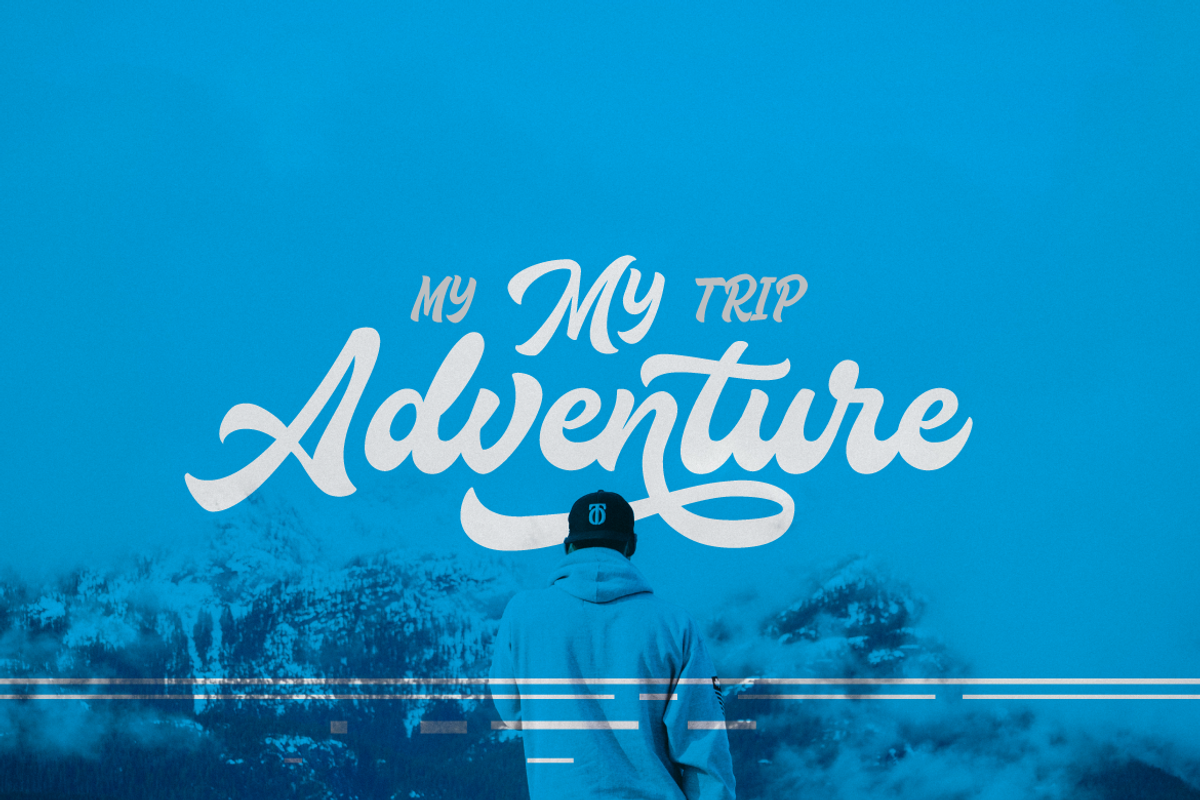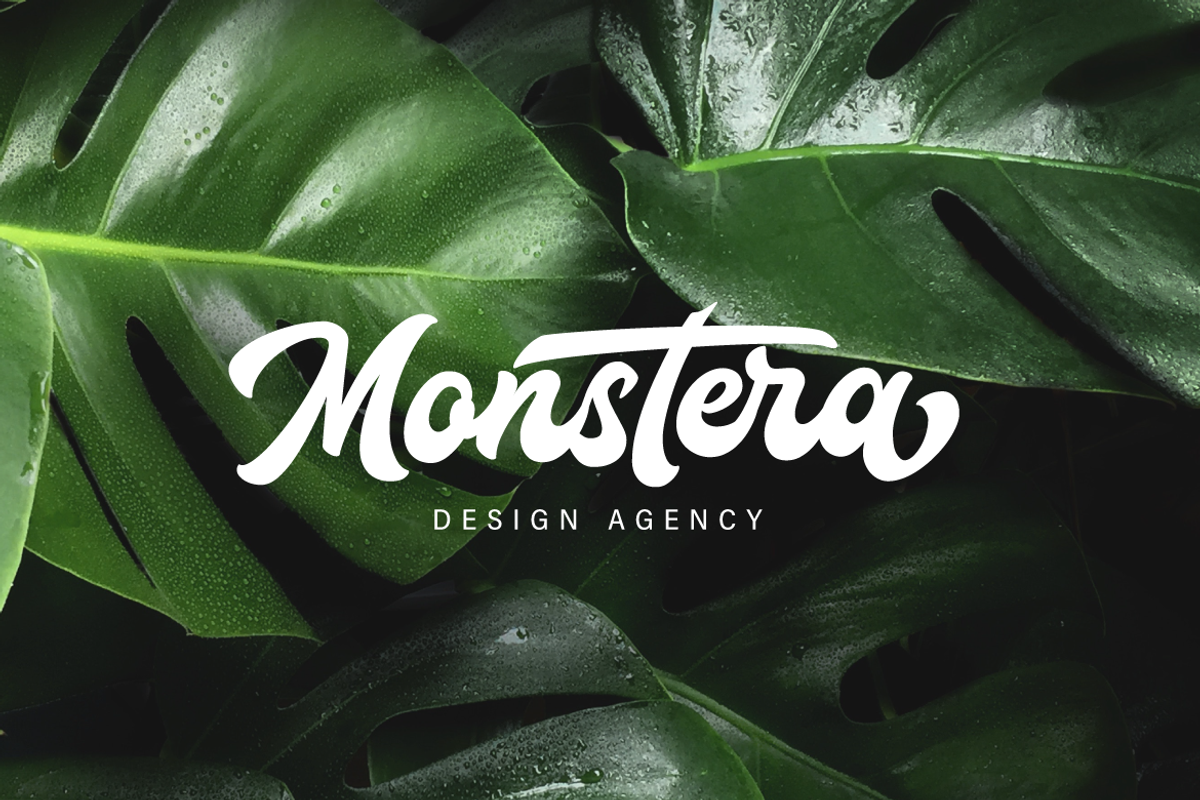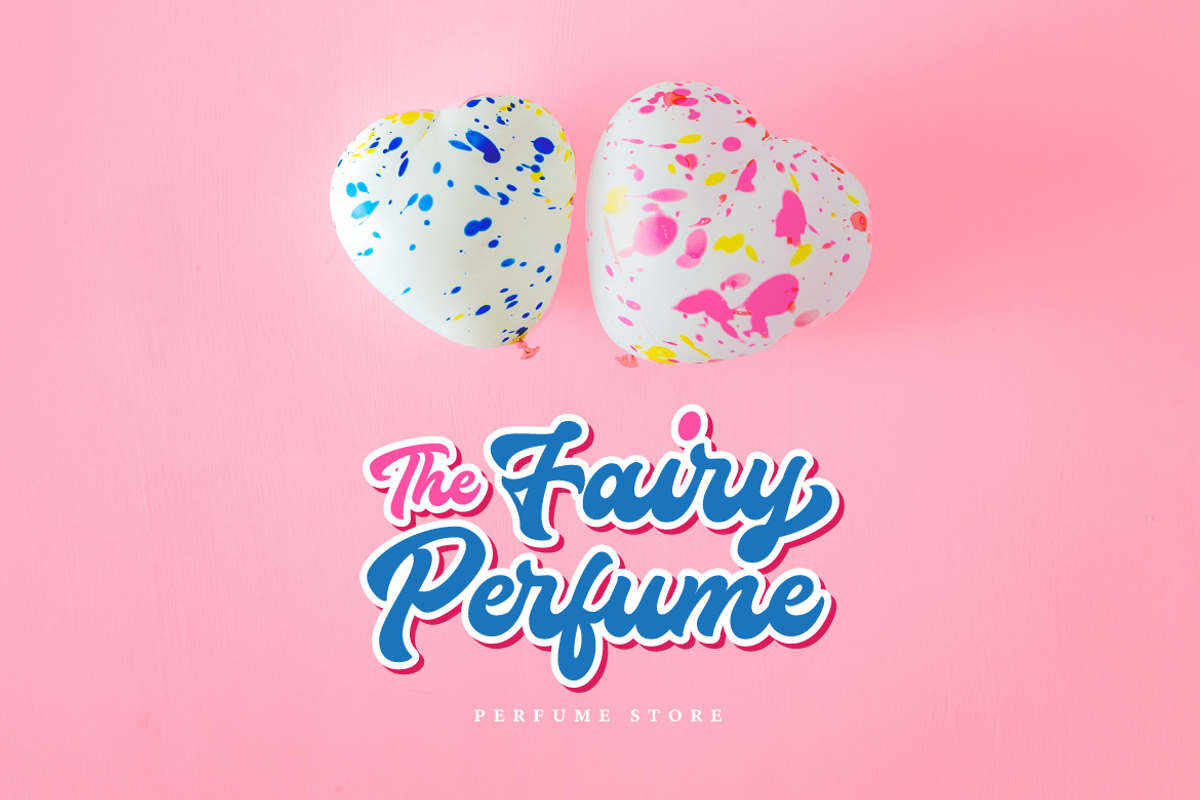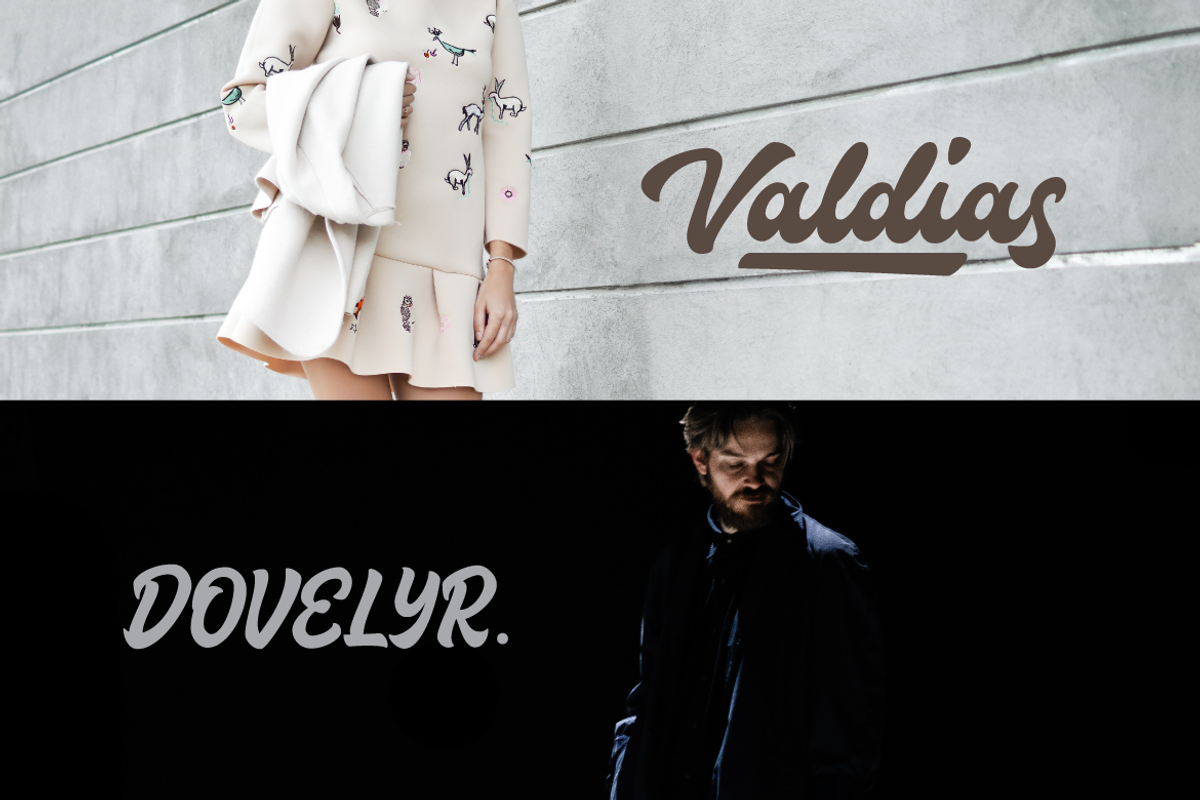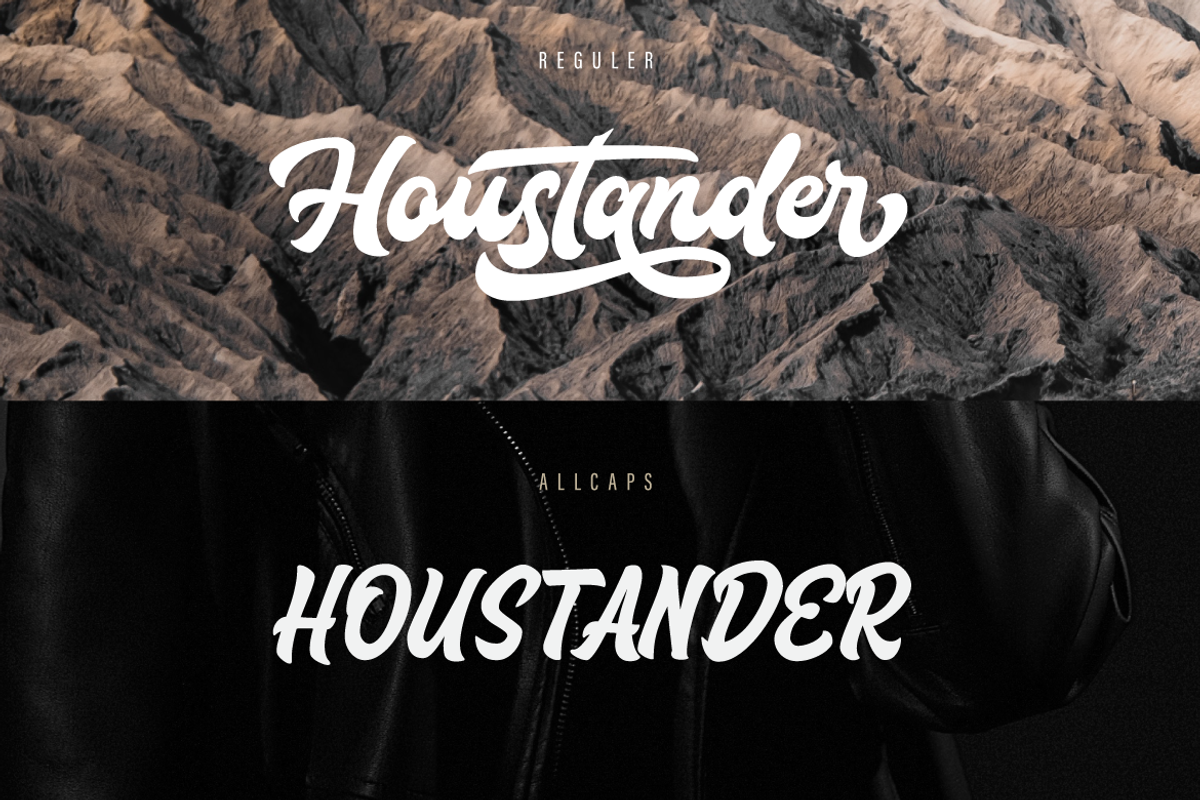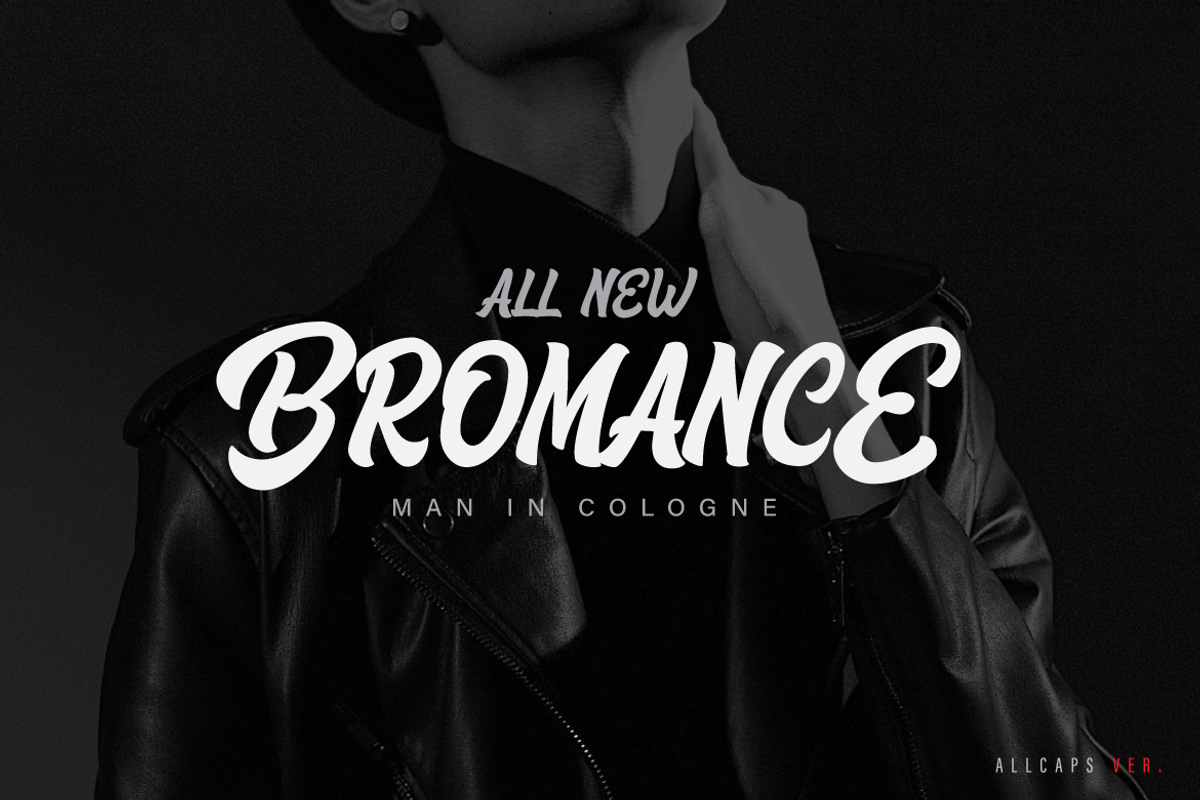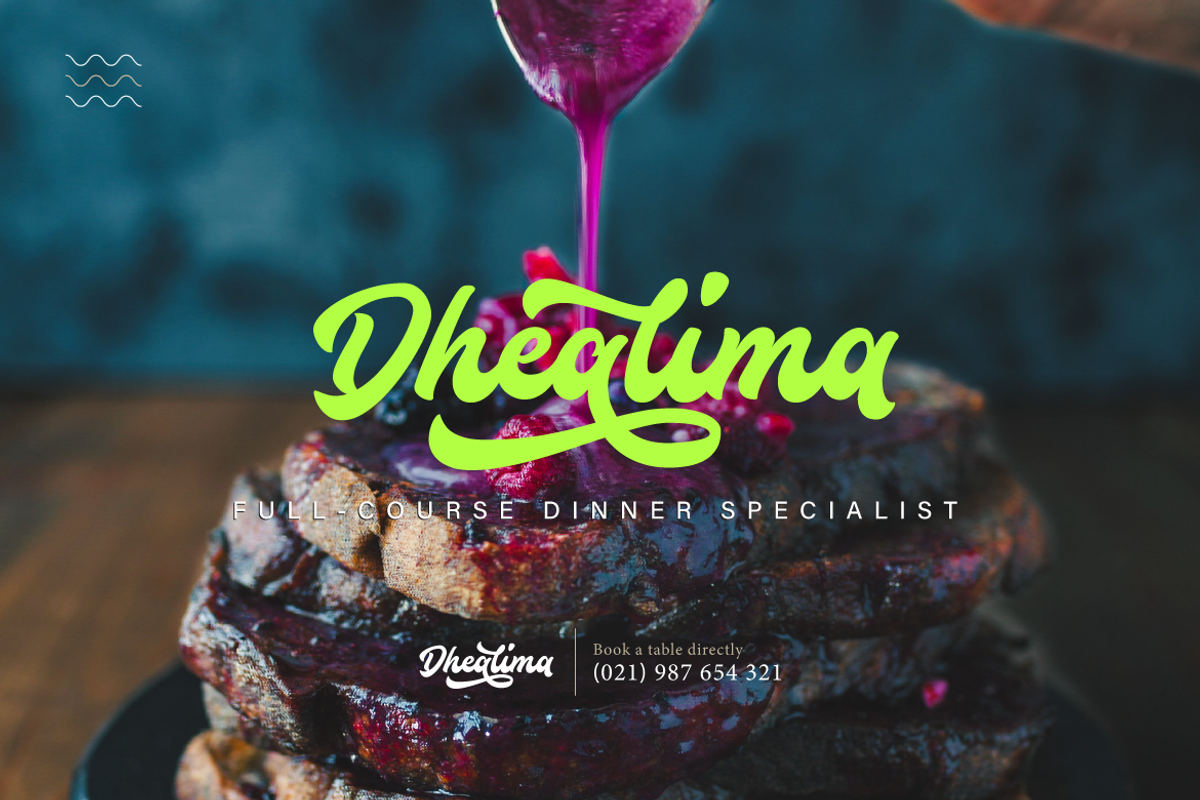
Houstander Font Duo
Houstander font duo is an excellent font for modern hand lettering logo or headline / display designs.
Suitable for any design needs : logo, branding, modern advertising design, logos, poster quote, book / cover Title, editorial design, website / blog, card, custom mug, pillow, t-shirts, and any hand-lettered needs.
Houstander Reguler (.ttf + .otf) comes with upper and lowercase Standard Characters, Punctuation, Numerals. And other Glyphs variation of the OpenType features such as Standard Ligature, Stylistic Alternate, Stylistic Set (ss01 - ss10) and swahes (1-10).
Houstander Swash (.ttf + .otf) an extras 26 swashes (a to z) to add punch to your designs.
- Houstander Allcaps (.ttf + .otf) comes with 2 sets Uppercase, Punctuation, and Numerals.
- Includes a range of multilingual characters.
Why Houstander Font Duo is worth a look
Houstander Font Duo by Typia Nesia fits naturally into Branding, posters, packaging, typography.